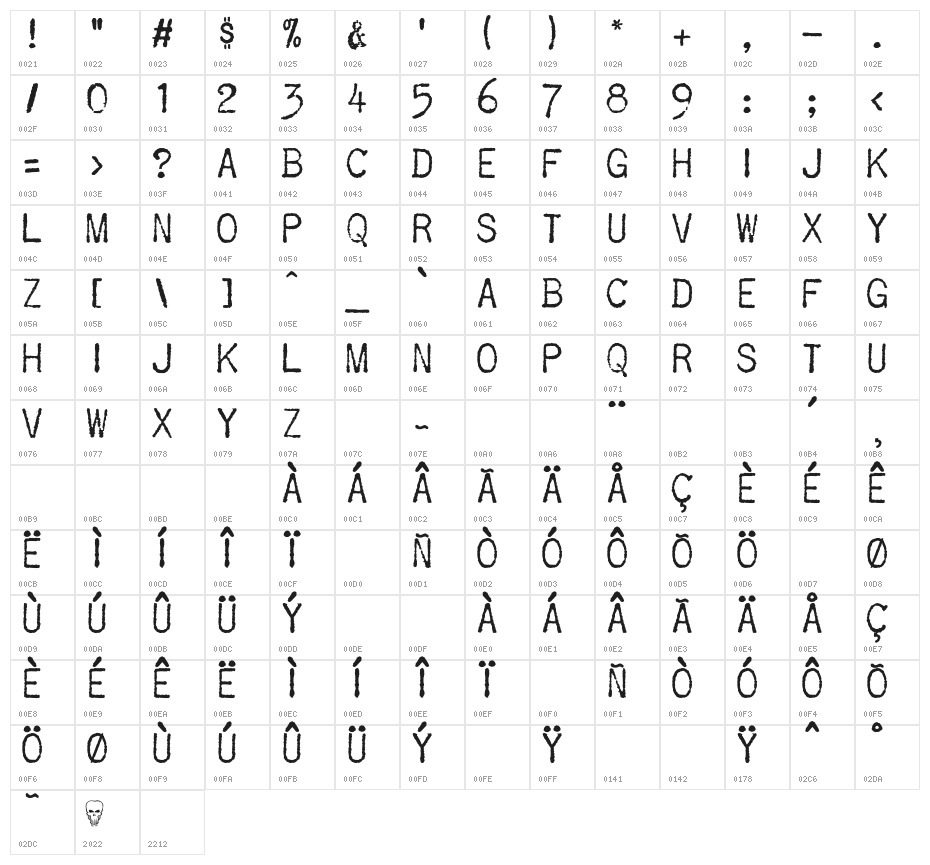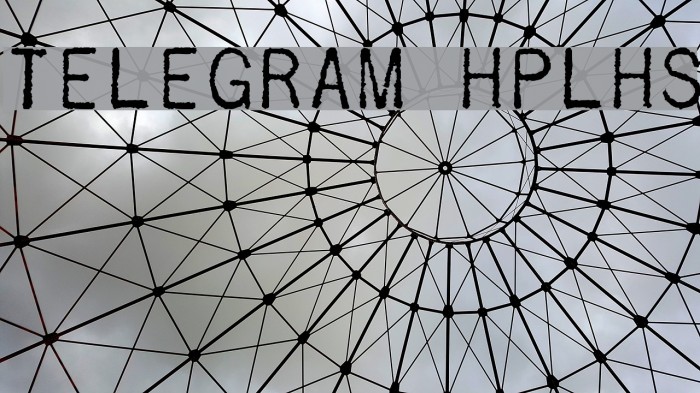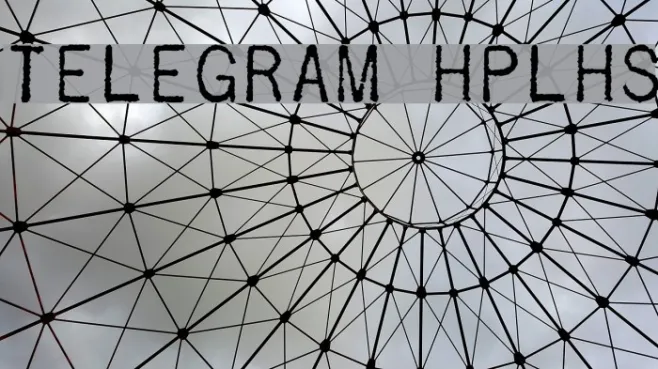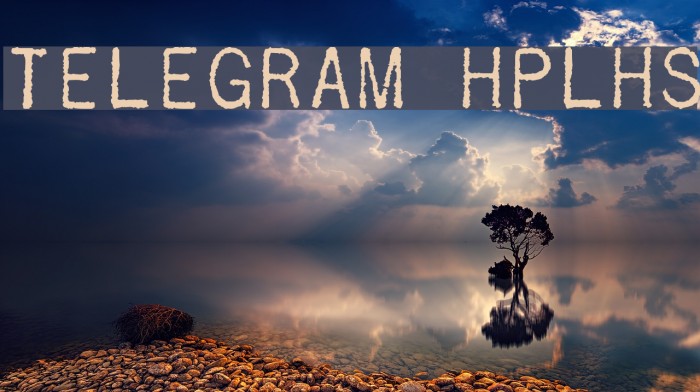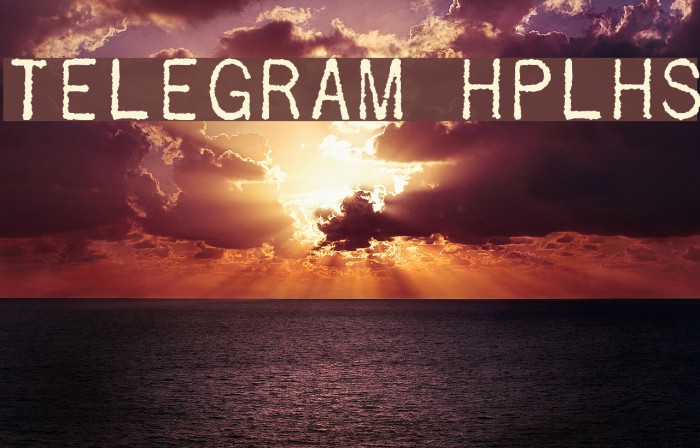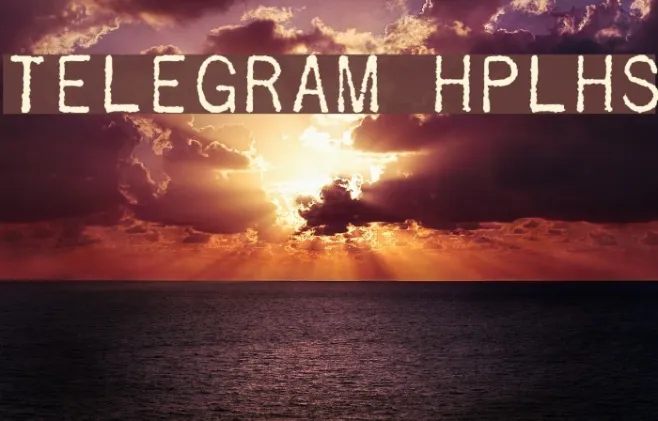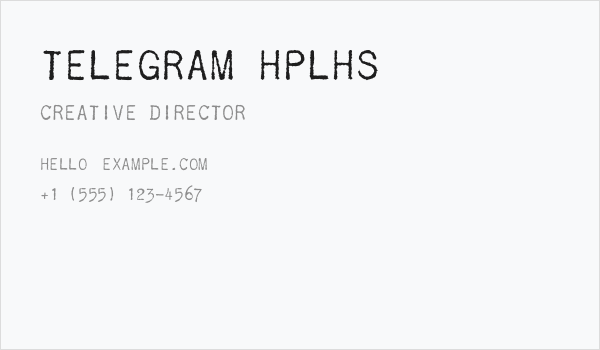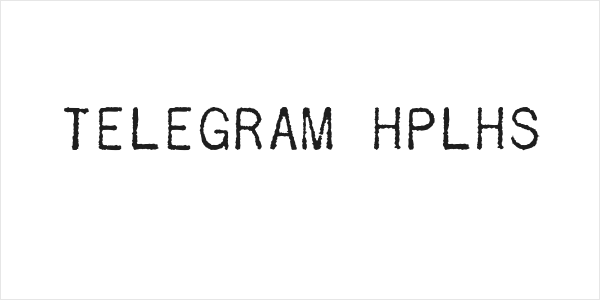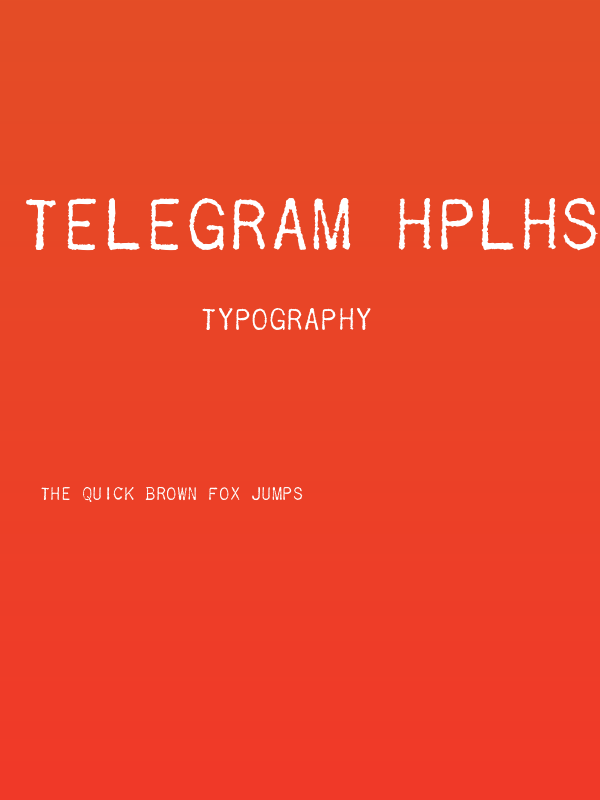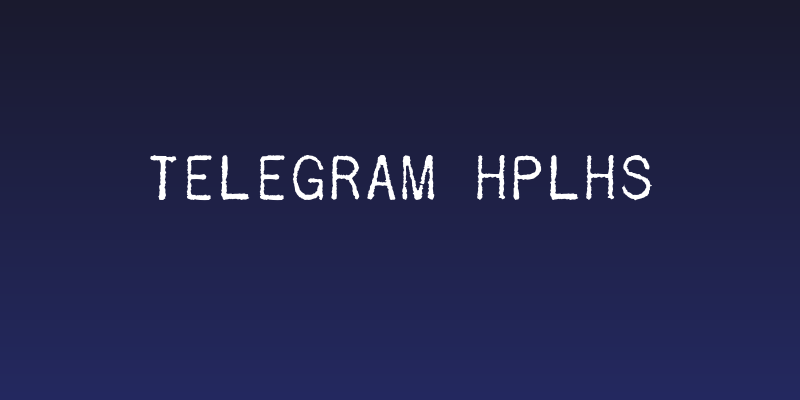
Telegram HPLHS Font
Telegram HPLHS Description
This font exhibits a distressed, vintage typewriter style with a rough, textured appearance. The characters are monospaced, giving it a uniform and mechanical feel, reminiscent of old telegrams or typewritten documents. The uppercase and lowercase letters maintain a consistent height, while the numbers and special characters follow the same monospaced format. The irregular edges and slight imperfections add to its charm, making it ideal for projects that require a retro or nostalgic touch. The font's overall appearance suggests a historical or archival theme, perfect for evoking a sense of the past.
Overall StyleVintage
Proposed ProjectsIdeal for retro-themed designs, historical documents, vintage posters, and creative projects that require an old-fashioned typewriter aesthetic.